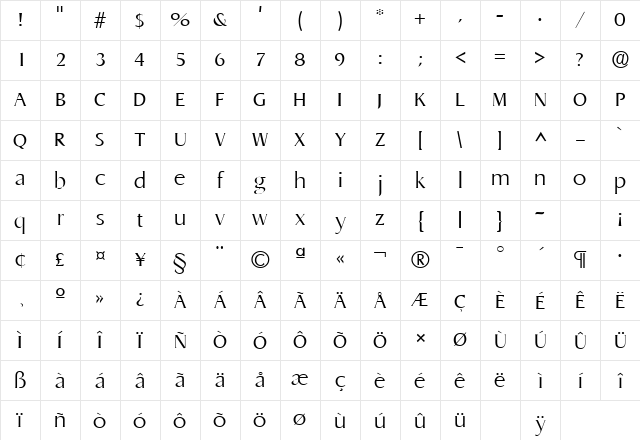
DragonLH Regular
Design Context for DragonLH
DragonLH is a composed and adaptable typeface that performs quietly and consistently across a wide range of design contexts.
Pro Tip: Use DragonLH in both headline and body roles to test its range before committing to a single application.